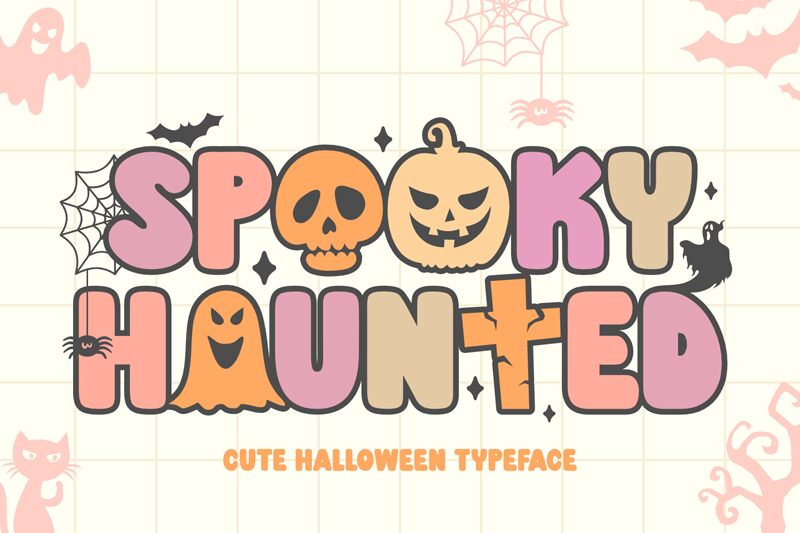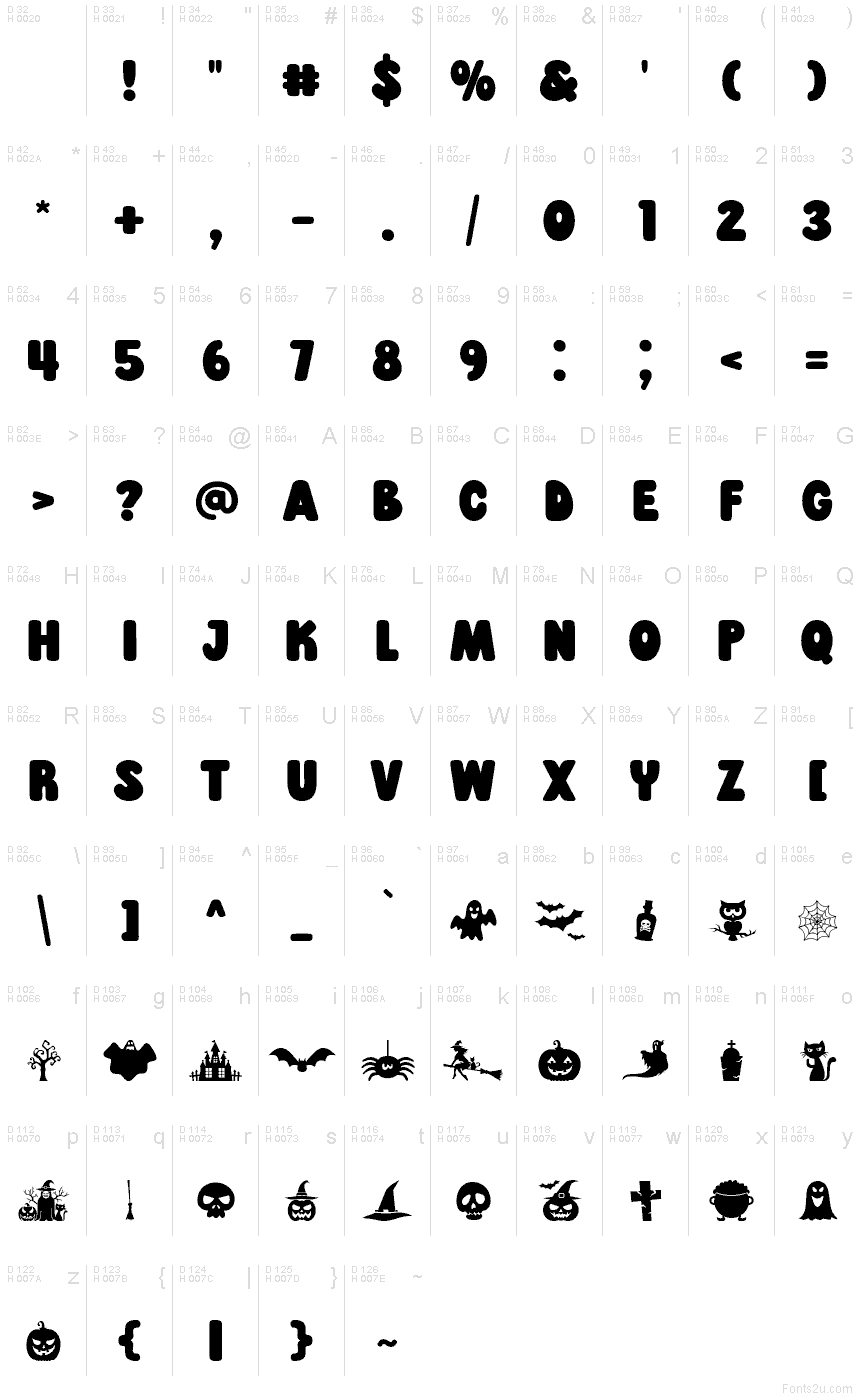
Spooky Haunted
Spooky Haunted font by keithzo is a free Halloween display font. Big, rounded letterforms swell like soft vinyl cutouts, with playful irregularities and inky silhouettes that read instantly spooky without getting gory. The chunky weight holds up at a distance, while the cartoony vibe—complete with bat-like accents—keeps things family‑friendly.
This free font shines on party flyers, haunted house posters, trick‑or‑treat bags, seasonal banners, YouTube thumbnails, and merch like tees or stickers. Using Spooky Haunted gives headlines a bold, bouncy rhythm that’s easy to spot on a crowded feed. Pair it with a clean geometric sans for body copy, and crank the size up 10–20% more than usual to let those bulbous forms breathe.